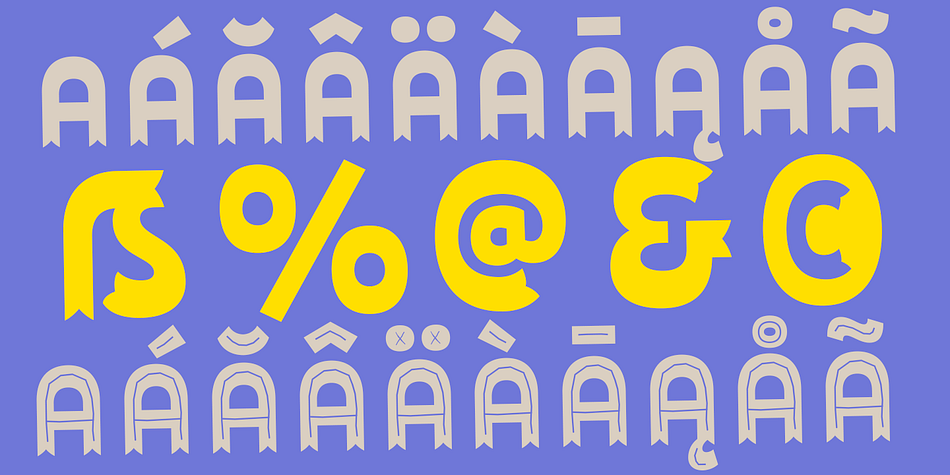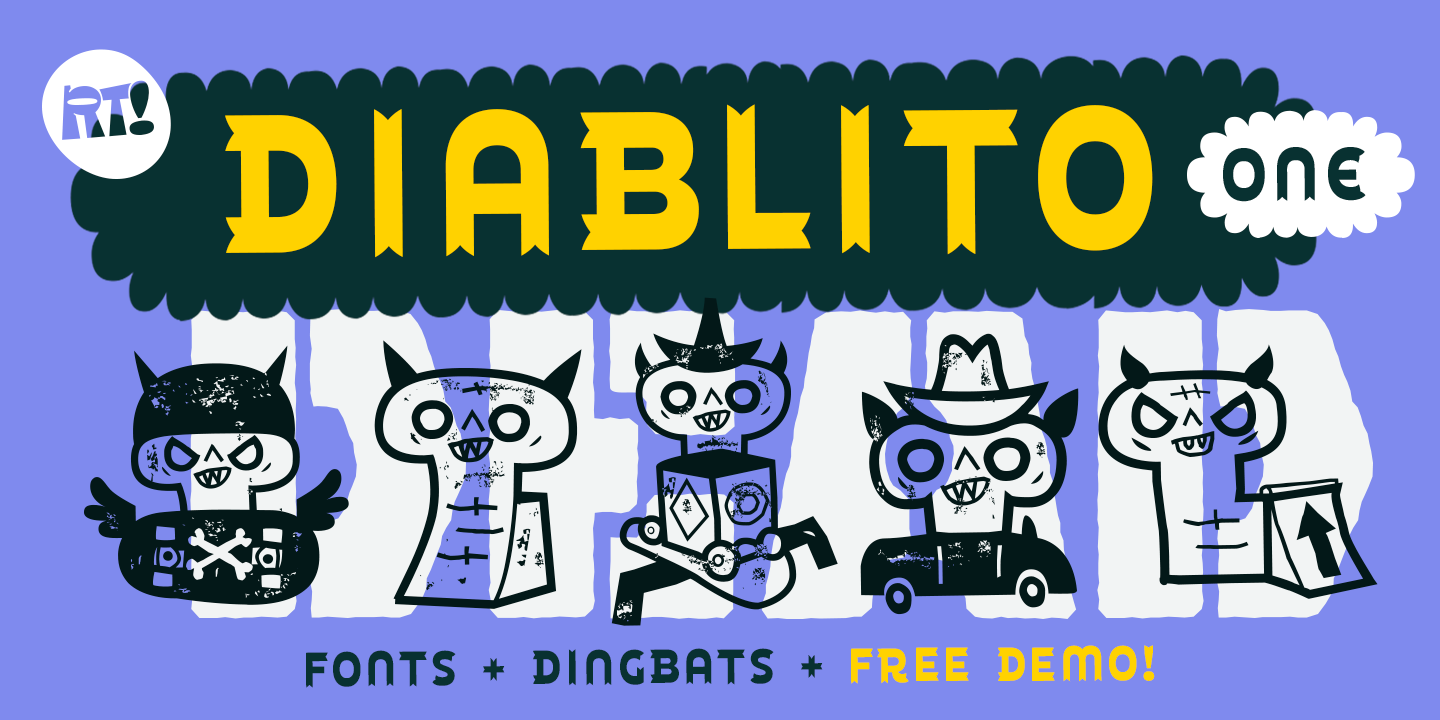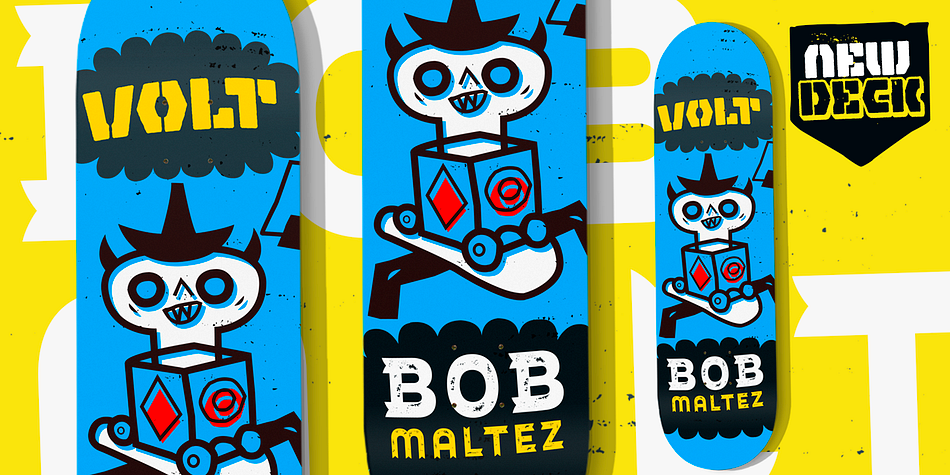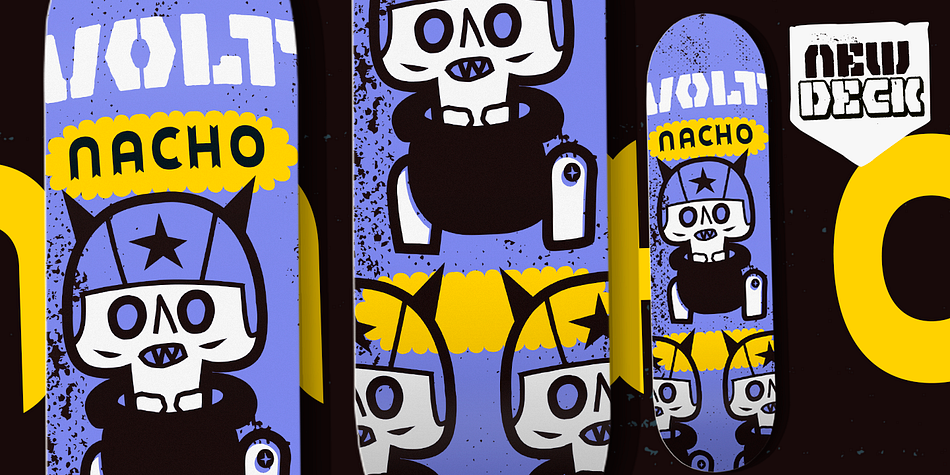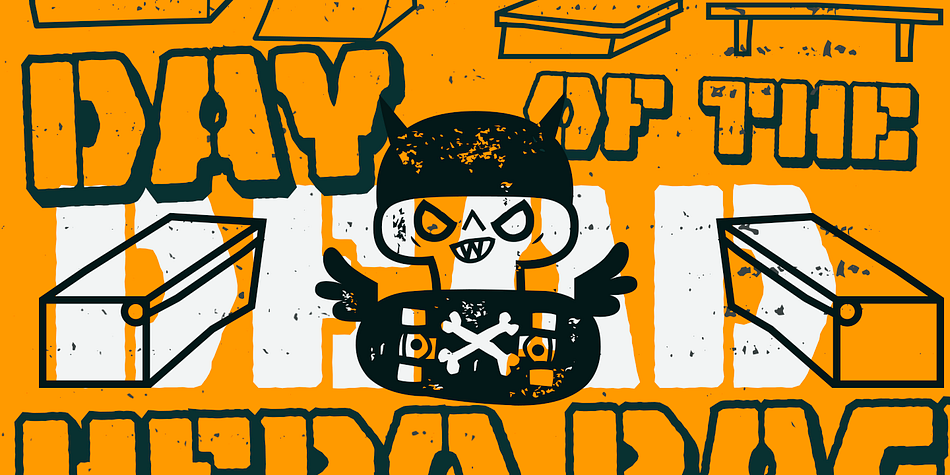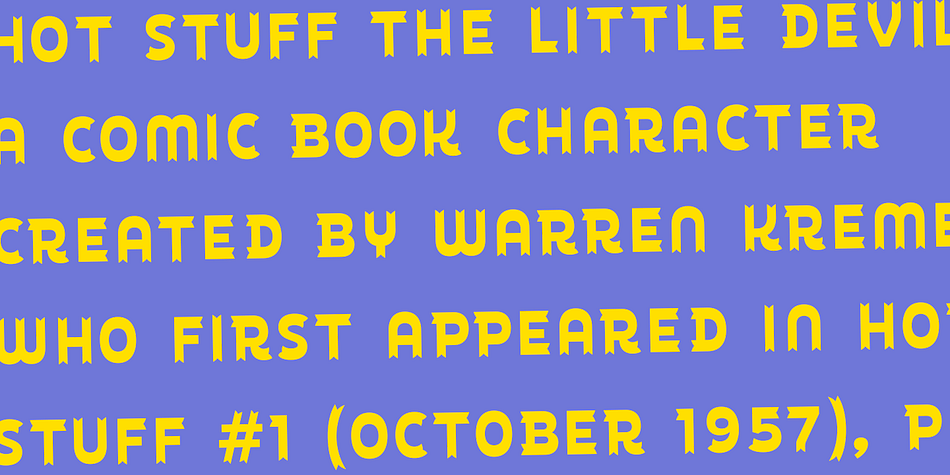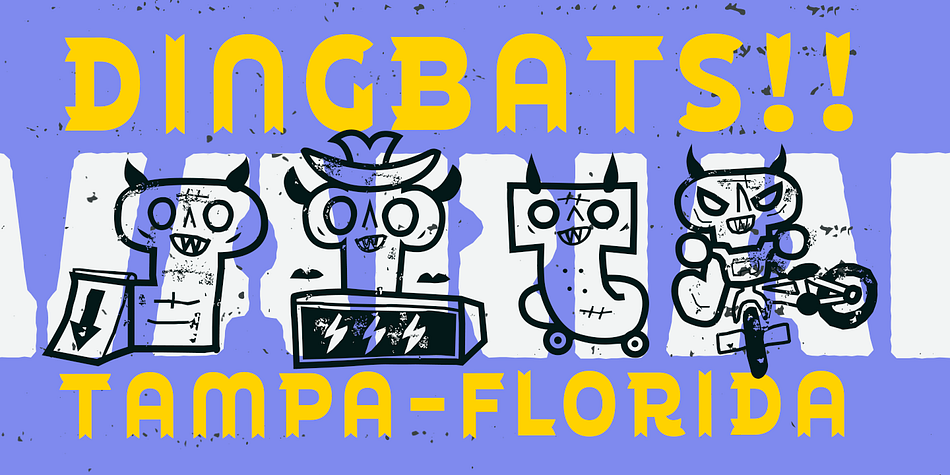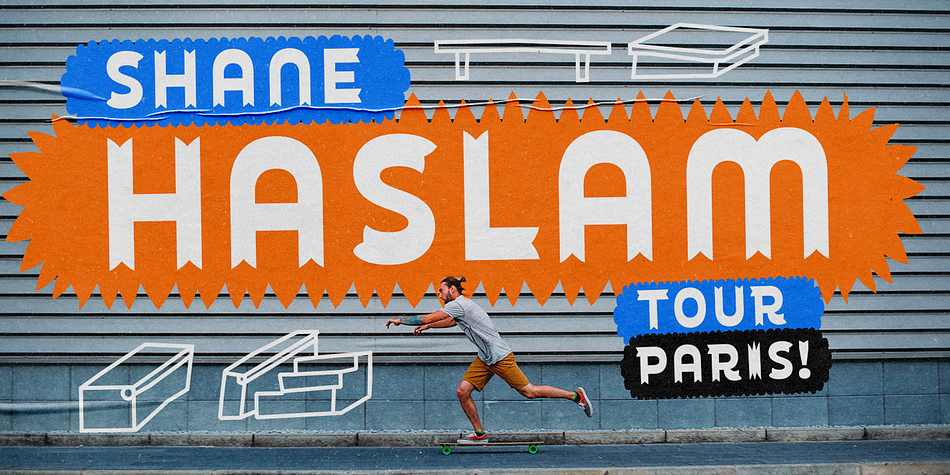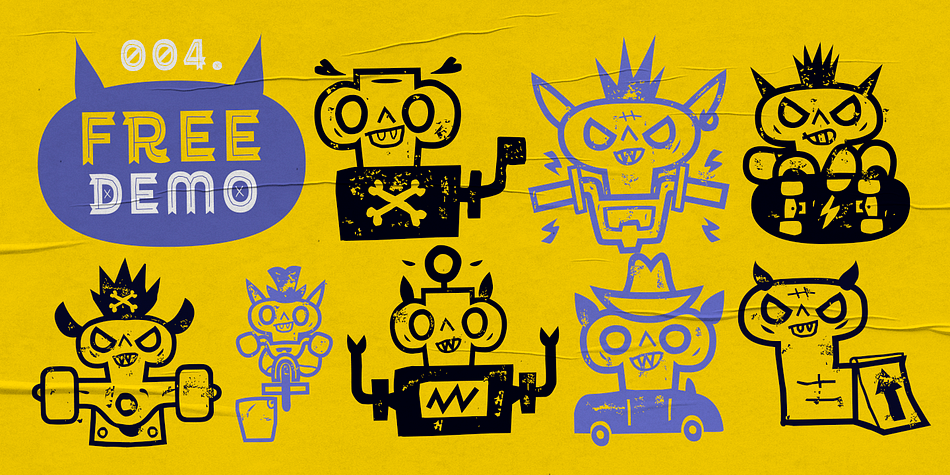
Designed by Rodrigo Salas and Bruno Jara, Diablito One is a display and dingbat font family. This typeface has six styles and was published by Rodrigo Typo.
is an entertaining font with pointed endings, contains inline and many dingbats, besides having a free version!